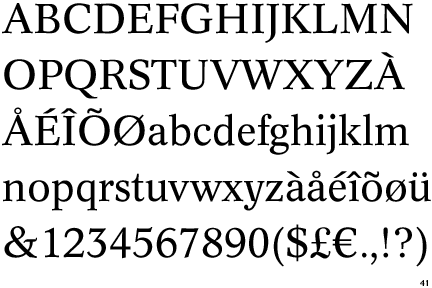
Information about the typeface Concorde BQ and where to buy it.
Designed as an alternative to Times New Roman.
Designer: Günter Gerhard Lange
Year: 1967
Publisher: Berthold